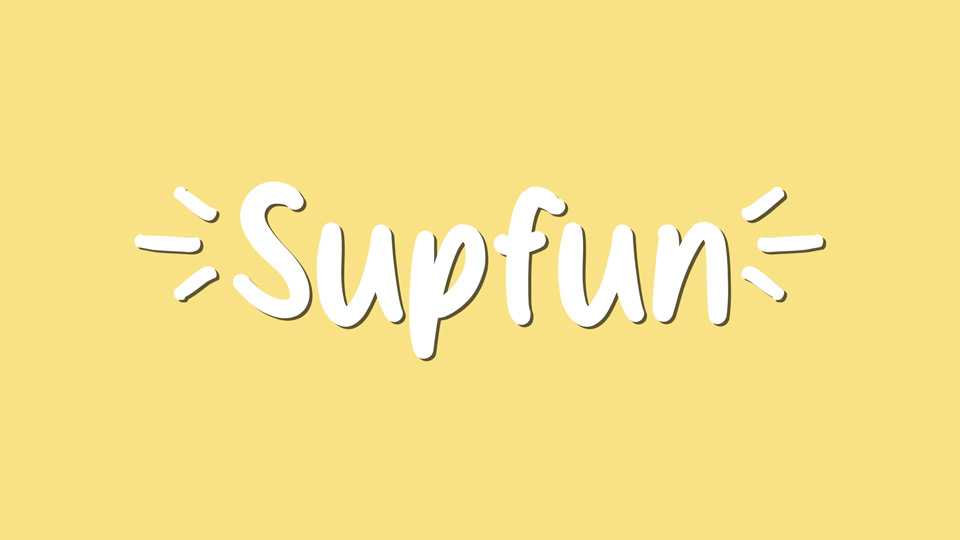
Download Supfun font, a handcrafted and comic-inspired handwritten typeface that turns your designs into a stage for humor and entertainment. Supfun font boasts a dynamic and energetic design, with each letter radiating a sense of movement and playfulness.